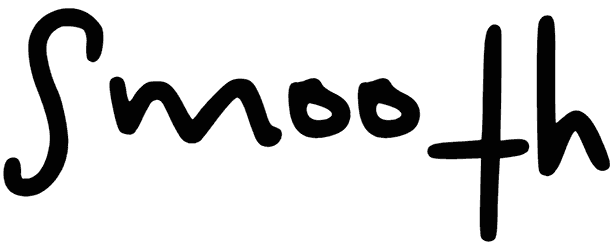
Smooth Font
Designed byCeej Loco
When you work on watermarks, invitations, posters, and other similar projects, Smooth may let you go back to the days when graphics were drawn by hand.
This barely legible script font is like putting together a jigsaw puzzle, and it will transport you back to your inner child. Look no further than our online collection for a handwritten font with bold characters to help your works stand out and grab the attention of your intended readers.